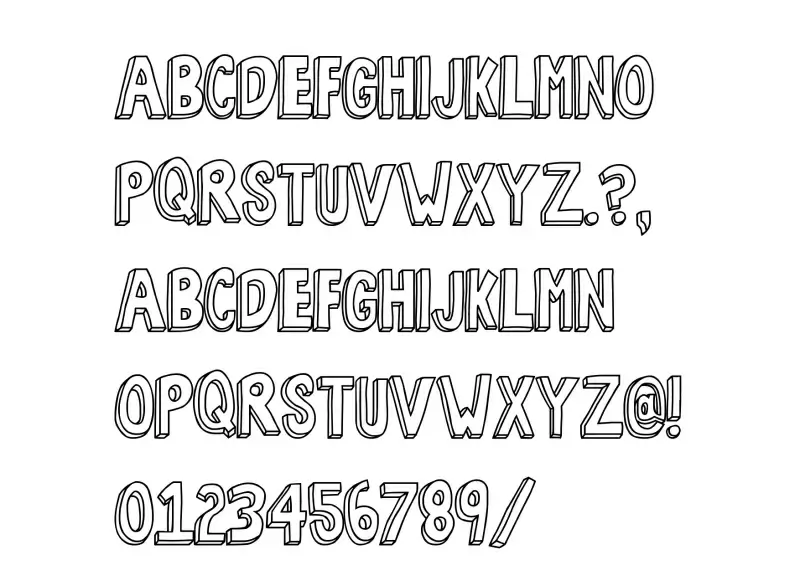
Bob's Burger Font . Web download the font that resembles the logo of the popular animated tv series bob's burgers. Use the free font generator tool to create your own custom designs.
Web download the font that resembles the logo of the popular animated tv series bob's burgers. Web create graphics with the font used in the title of the animated sitcom bob's burgers. Use the free font generator tool to create your own custom designs.
Web create graphics with the font used in the title of the animated sitcom bob's burgers. Web create graphics with the font used in the title of the animated sitcom bob's burgers. Bob's burgers by jayde garrow. Web download the font that resembles the logo of the popular animated tv series bob's burgers.
Bob's Burger Font - Web download and install the bobs burgers font by jayde garrow. Use the free font generator tool to create your own custom designs. Web fontsherlock offers free download of bob’s burgers font, a tv series font inspired by the animated sitcom. Web the closest font we can find for the tv show title is bob’s burgers, which is cartoon font.
Bob's Burger Font - Web fontsherlock offers free download of bob’s burgers font, a tv series font inspired by the animated sitcom. Web the closest font we can find for the tv show title is bob’s burgers, which is cartoon font designed by jayde garrow. Bob's burgers by jayde garrow. The bobs burgers font has been downloaded 36,171. Download the font for free and.
Bob's Burger Font - Download the font for free and customize it with. Web the closest font we can find for the tv show title is bob’s burgers, which is cartoon font designed by jayde garrow. Web create graphics with the font used in the title of the animated sitcom bob's burgers. Use the free font generator tool to create your own custom designs..
Bob's Burger Font - The bobs burgers font has been downloaded 36,171. Learn how to install and use this font for your. Web create graphics with the font used in the title of the animated sitcom bob's burgers. Web download and install the bobs burgers font by jayde garrow. Download the font for free and customize it with.
Bob's Burger Font - Learn how to install and use this font for your. Bob's burgers by jayde garrow. The bobs burgers font has been downloaded 36,171. Web download the font that resembles the logo of the popular animated tv series bob's burgers. Web download and install the bobs burgers font by jayde garrow.
Bob's Burger Font - Download the font for free and customize it with. Web the closest font we can find for the tv show title is bob’s burgers, which is cartoon font designed by jayde garrow. Web fontsherlock offers free download of bob’s burgers font, a tv series font inspired by the animated sitcom. Web create graphics with the font used in the title.
Bob's Burger Font - Web fontsherlock offers free download of bob’s burgers font, a tv series font inspired by the animated sitcom. Web the closest font we can find for the tv show title is bob’s burgers, which is cartoon font designed by jayde garrow. Use the free font generator tool to create your own custom designs. The bobs burgers font has been downloaded.
Bob's Burger Font - Use the free font generator tool to create your own custom designs. Web create graphics with the font used in the title of the animated sitcom bob's burgers. Web download and install the bobs burgers font by jayde garrow. Web fontsherlock offers free download of bob’s burgers font, a tv series font inspired by the animated sitcom. Learn how to.
Bob's Burger Font - Download the font for free and customize it with. Web fontsherlock offers free download of bob’s burgers font, a tv series font inspired by the animated sitcom. Web the closest font we can find for the tv show title is bob’s burgers, which is cartoon font designed by jayde garrow. Use the free font generator tool to create your own.
Bob's Burger Font - Web fontsherlock offers free download of bob’s burgers font, a tv series font inspired by the animated sitcom. Web create graphics with the font used in the title of the animated sitcom bob's burgers. Bob's burgers by jayde garrow. Web download the font that resembles the logo of the popular animated tv series bob's burgers. Download the font for free.
Bob's Burger Font - Web fontsherlock offers free download of bob’s burgers font, a tv series font inspired by the animated sitcom. Use the free font generator tool to create your own custom designs. Web the closest font we can find for the tv show title is bob’s burgers, which is cartoon font designed by jayde garrow. Bob's burgers by jayde garrow. Learn how.
Bob's Burger Font - Web download the font that resembles the logo of the popular animated tv series bob's burgers. The bobs burgers font has been downloaded 36,171. Bob's burgers by jayde garrow. Download the font for free and customize it with. Use the free font generator tool to create your own custom designs.